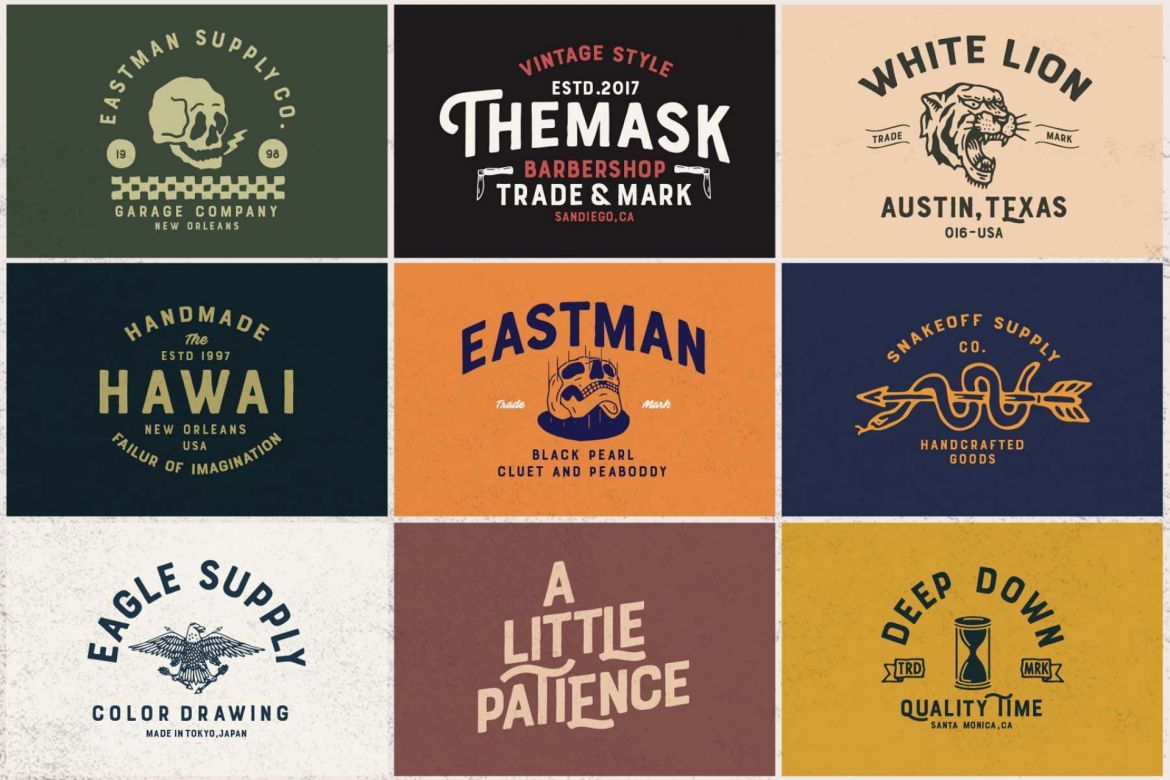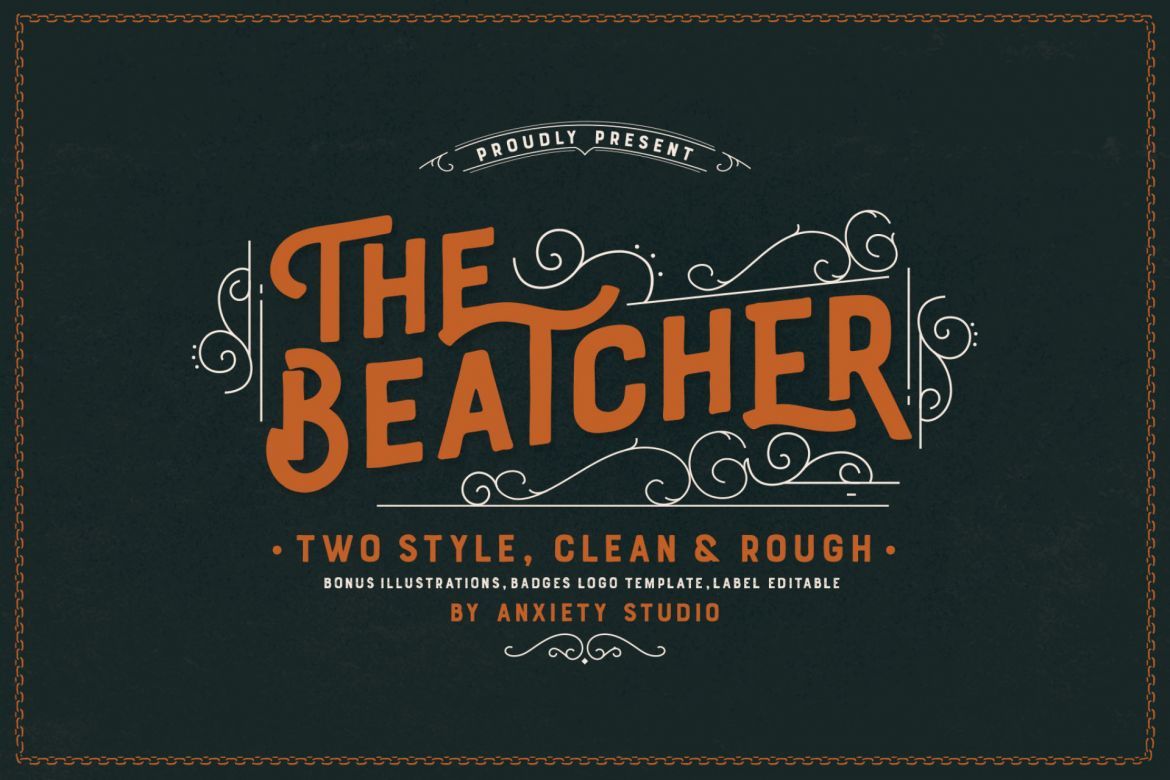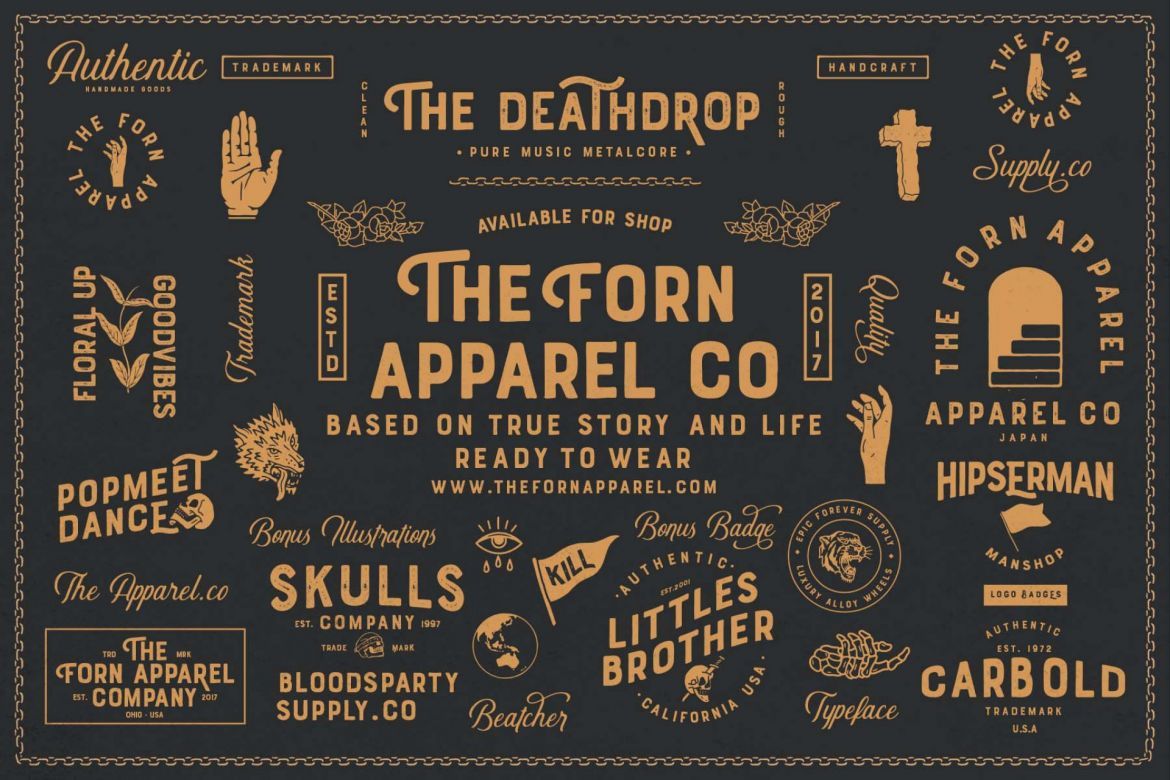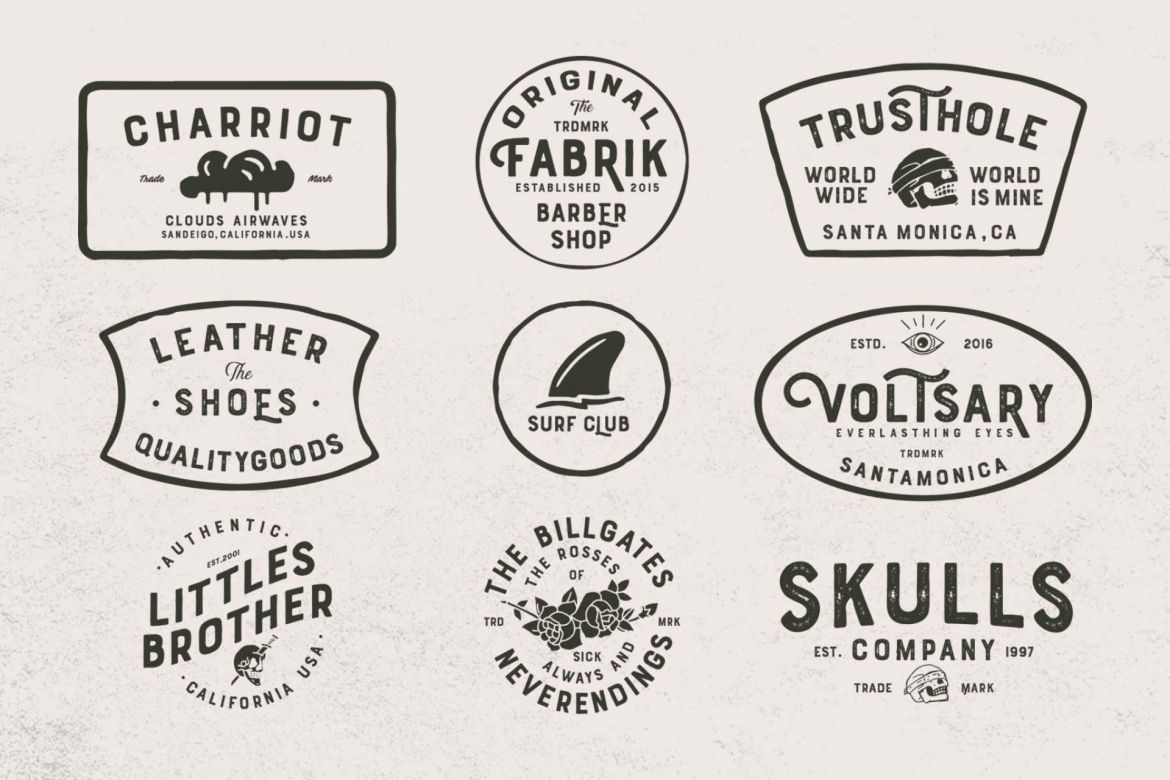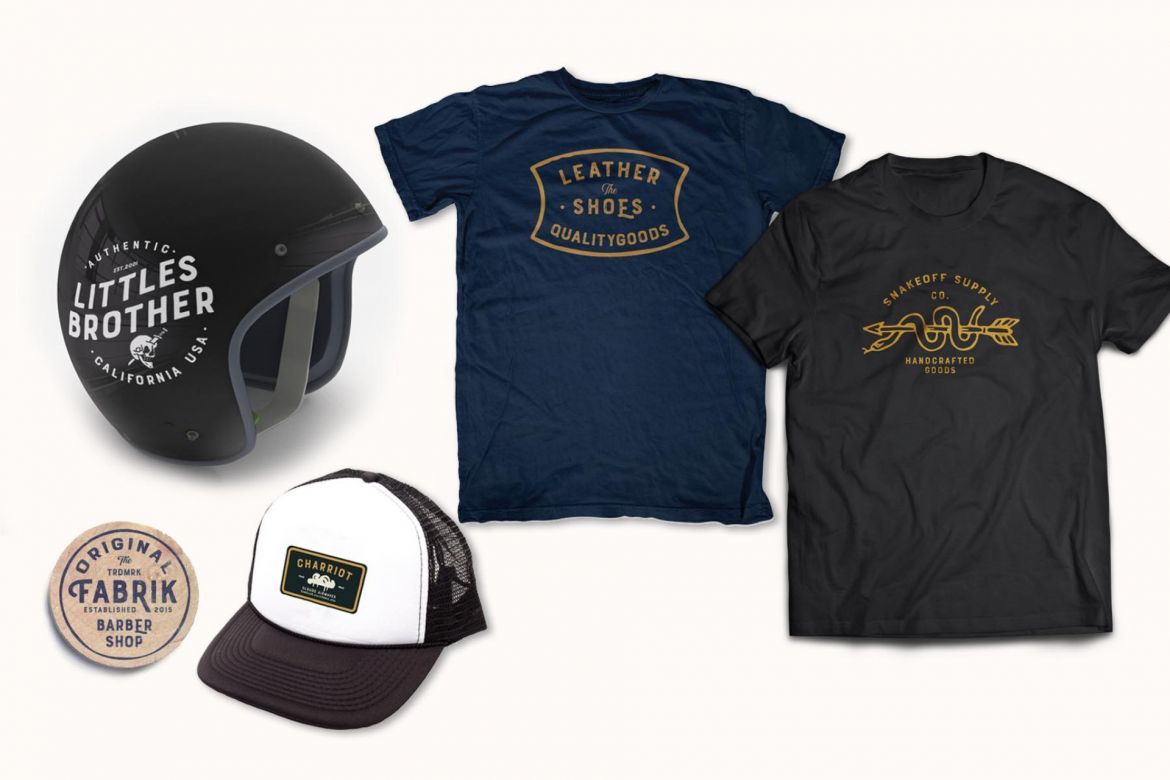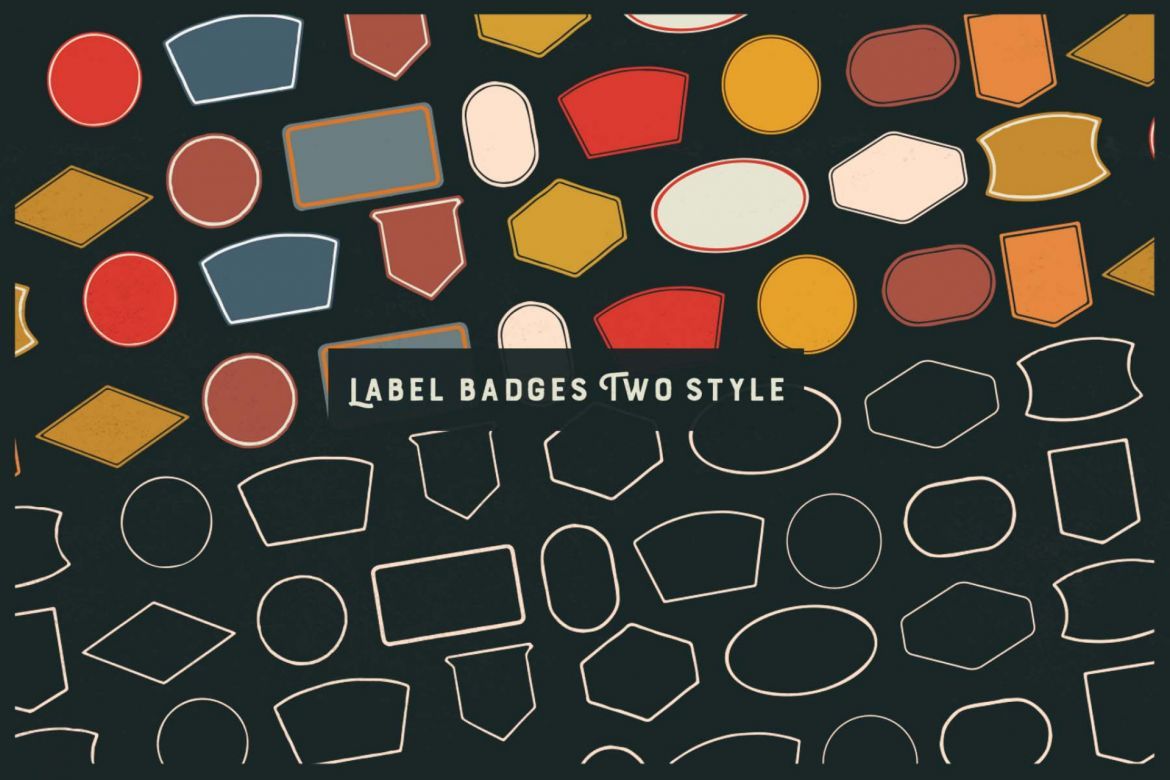
The Beatcher Typeface (Extras)
The Beatcher is a font that has two different font styles for your design needs. Included in the family are the Sans version, and the Special Decorative version, and each has their own clean, and rough style. This can be used to make almost all types of design projects such as printed materials. Just use your imagination and some graphic designs arranged in Extras, your project will become more alive and look great than before with The Beatcher Typeface.
You want to make a greeting card or package design, or even brand identity, craft design, company logo, cafe logo, book title, wedding font, vintage pop design, retro design or any purpose to make your art / design project look beautiful and trendy ? Don't hesitate to play with all the patterns and shapes!
All display logo badges and templates can be edited and include bonuses.
• easily applied to various media
• the beatcher matches the design of logos, labels, posters, packaging, brochures, t-shirts, and more!